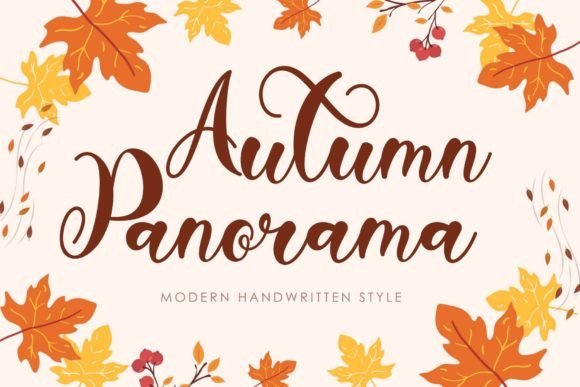
Creating a Cozy Fall Atmosphere with the Autumn Panorama Font
As the leaves start to change colors and the air grows crisp, many designers find themselves in the mood for creating something warm and inviting. Whether it’s a poster for a fall festival or a holiday card for a loved one, the right font can make all the difference. That’s where the Autumn Panorama Font comes in – a beautiful and pretty handwritten font that’s perfect for capturing the essence of the season.
With its elegant script and rustic charm, the Autumn Panorama Font is an excellent choice for designers looking to add a touch of autumnal magic to their projects. From posters and banners to branding and holiday-themed designs, this versatile font is sure to make your creations stand out. Its multilingual support and extensive character set make it a valuable addition to any designer’s toolkit.
Autumn Panorama Font Key Features
- Font Styles: Autumn Panorama Font offers a range of font styles, including regular, italic, bold, and bold italic, to cater to various design needs.
- Unique Characteristics: Autumn Panorama Font features a unique, hand-drawn design with subtle texture and organic elements, giving it a warm and inviting feel.
- Character Count: The font includes a wide range of characters, including uppercase and lowercase letters, numbers, punctuation, and special characters, making it suitable for use in various languages.
Autumn Panorama Font Review
Overall, I think the Autumn Panorama font has some great qualities that make it a solid choice for designers.
✨ The font’s unique blend of modern and traditional elements gives it a charming, storybook feel that’s perfect for fall-themed designs. The letters are intricately detailed, with subtle textures and patterns that add depth and visual interest.
✨ The font is highly customizable, with a wide range of weights and styles to choose from. This makes it easy to find the perfect fit for your design, whether you’re going for a bold and eye-catching look or a more subtle, understated feel.
✨ The font is also surprisingly versatile, working well for both digital and print designs. I was able to use it effectively in everything from social media graphics to brochure designs.
⚠️ One of the biggest limitations of the Autumn Panorama font is its limited support for non-Latin characters. While this may not be a major issue for most designers, it’s something to consider if you need to create designs for international audiences.
I’d say the Autumn Panorama font is a solid choice for designers looking for a unique and versatile font for fall-themed designs. While it has some limitations, its strengths far outweigh its weaknesses, making it a great addition to any designer’s toolkit.
For optimal results, use Autumn Panorama Font in combination with autumn-themed colors and images. Experiment with different font sizes and styles to create visual interest.
Autumn Panorama Font is ideal for:
- Autumn-themed posters and flyers.
- Seasonal greeting cards and invitations.
- Food and beverage branding (e.g., coffee shops, bakeries).